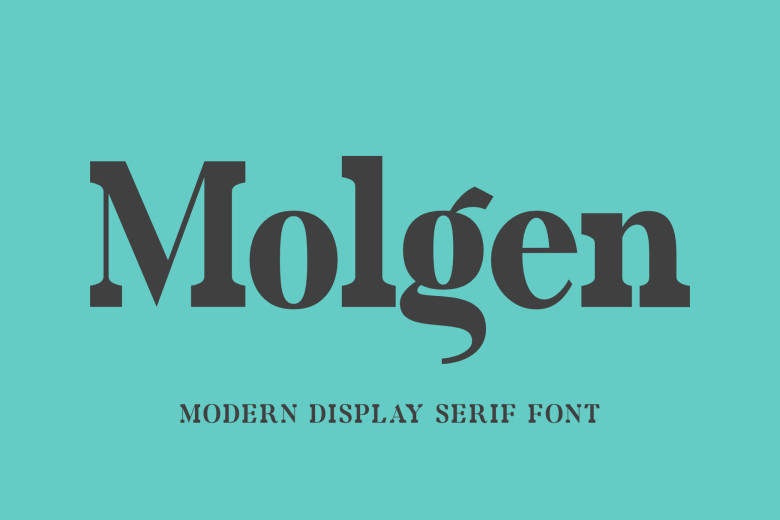
Molgen Font
Molgen is an eye-catching contemporary display serif font designed to stand out. With a combination of classic serifs and contemporary display elements, this font strikes the ideal balance between tradition and modernity in typography. Molgen can help set off sophisticated and contemporary images.
Molgen Serif Font